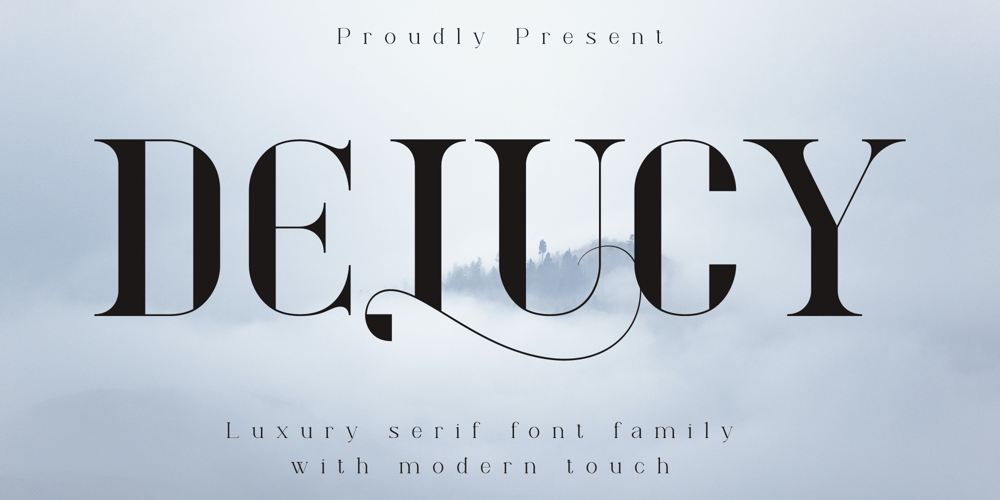
Delucy
Delucy font
Delucy Font Family was designed by Irfan Hidayat and published by Creative17studio. Delucy contains 2 styles and family package options. Introducing…!!!Delucy, a new serif font that is charming, sophisticated, and luxurious. A very versatile font for your design projects, both large and small.This font is made for those of you who need a font with a sophisticated and luxurious style, especially for large design projects. This font is also provided with several alternative fonts, so that they can be adapted to your project.Features :1. Complete basic character.2. Multilingual support.3. Numerals & punctuation.4. ligatures.5. Alternate characters.This font is PUA encoded, which means you can access the extra glyphs very easily.Any question? just ask.Free updatesThank you